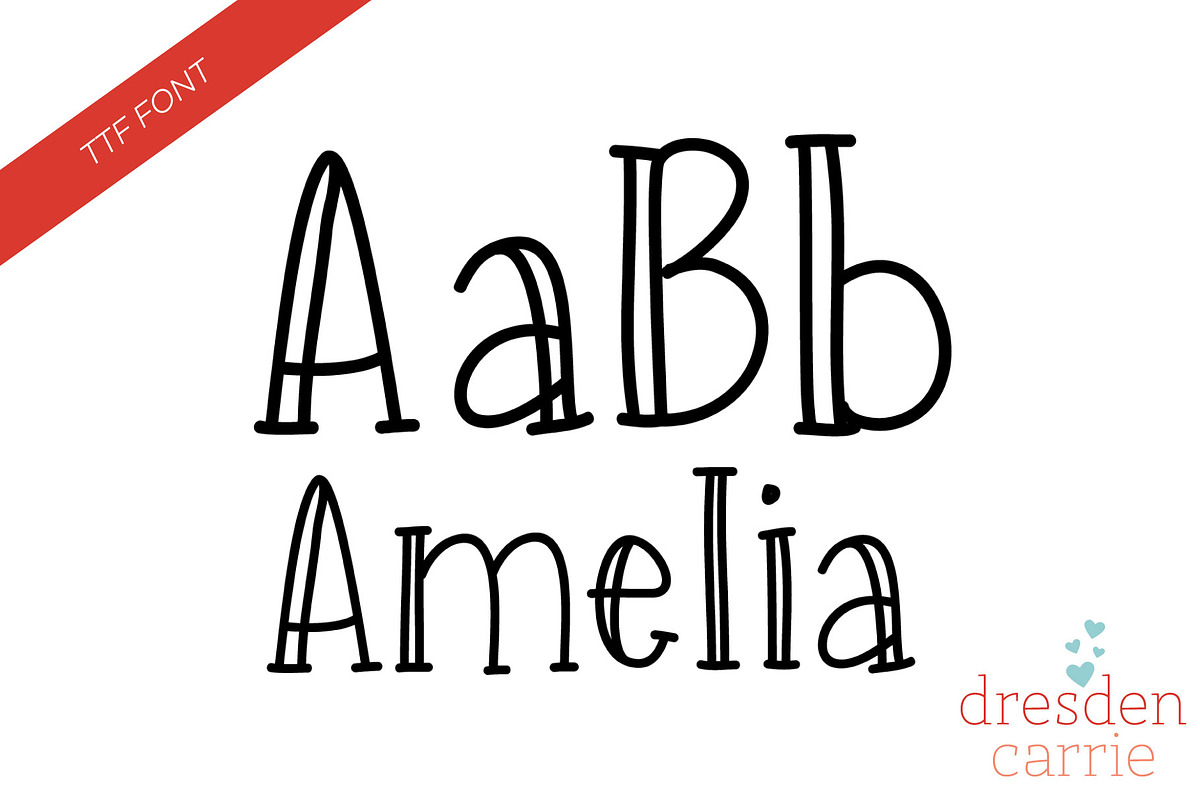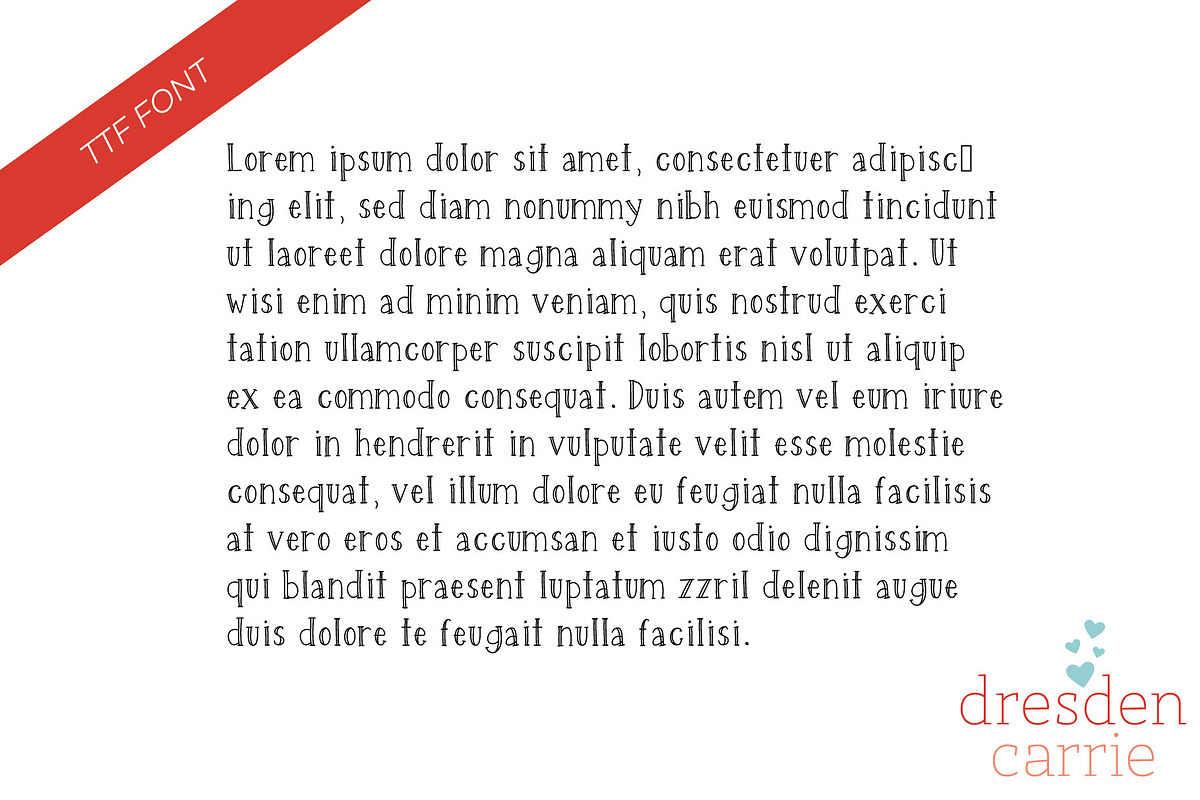
Amelia Hand-Drawn Font
Why Amelia Hand-Drawn Font is worth a look
Amelia Hand-Drawn Font by dresdencarrie designs fits naturally into Branding, posters, packaging, typography.